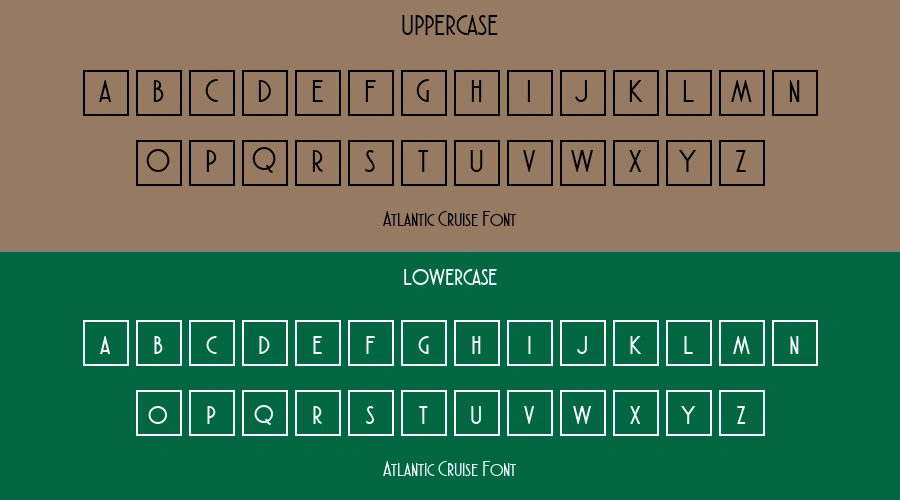
About Atlantic Cruise Font
Designed with precision, Atlantic Cruise Font merges harmonic curves with durability in every character. This versatility makes it particularly effective for magazine covers, where expressiveness and visual authority directly impact communication quality. Each letterform demonstrates meticulous craftsmanship.
Technical excellence shines through elements like decorative elements and automatic fractions, enhancing typographic versatility. In footnotes settings, Atlantic Cruise Font proves its worth through superior small text rendering. The thoughtful execution of tail length and artistic merit ensures professional results.
Atlantic Cruise Font |